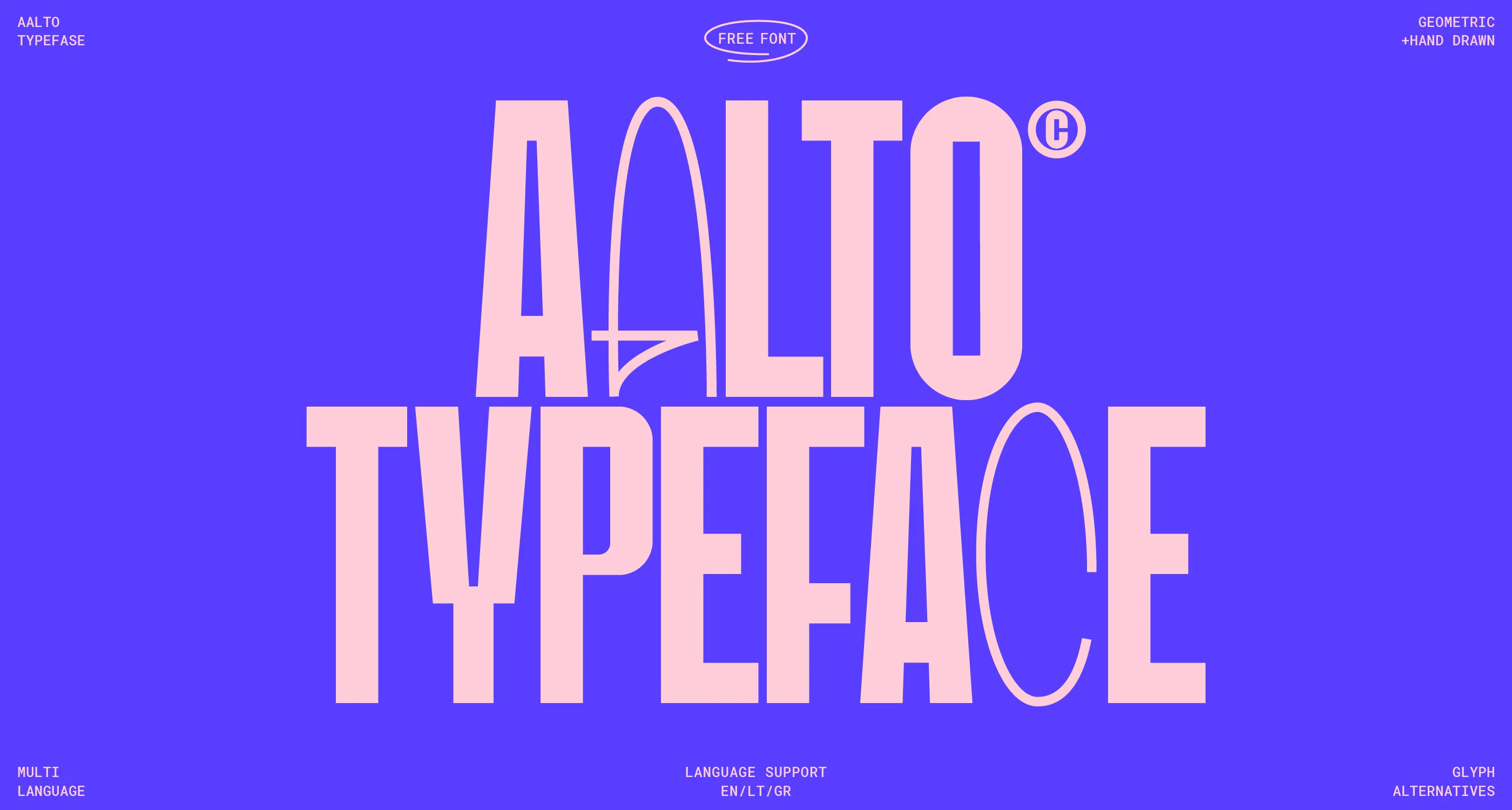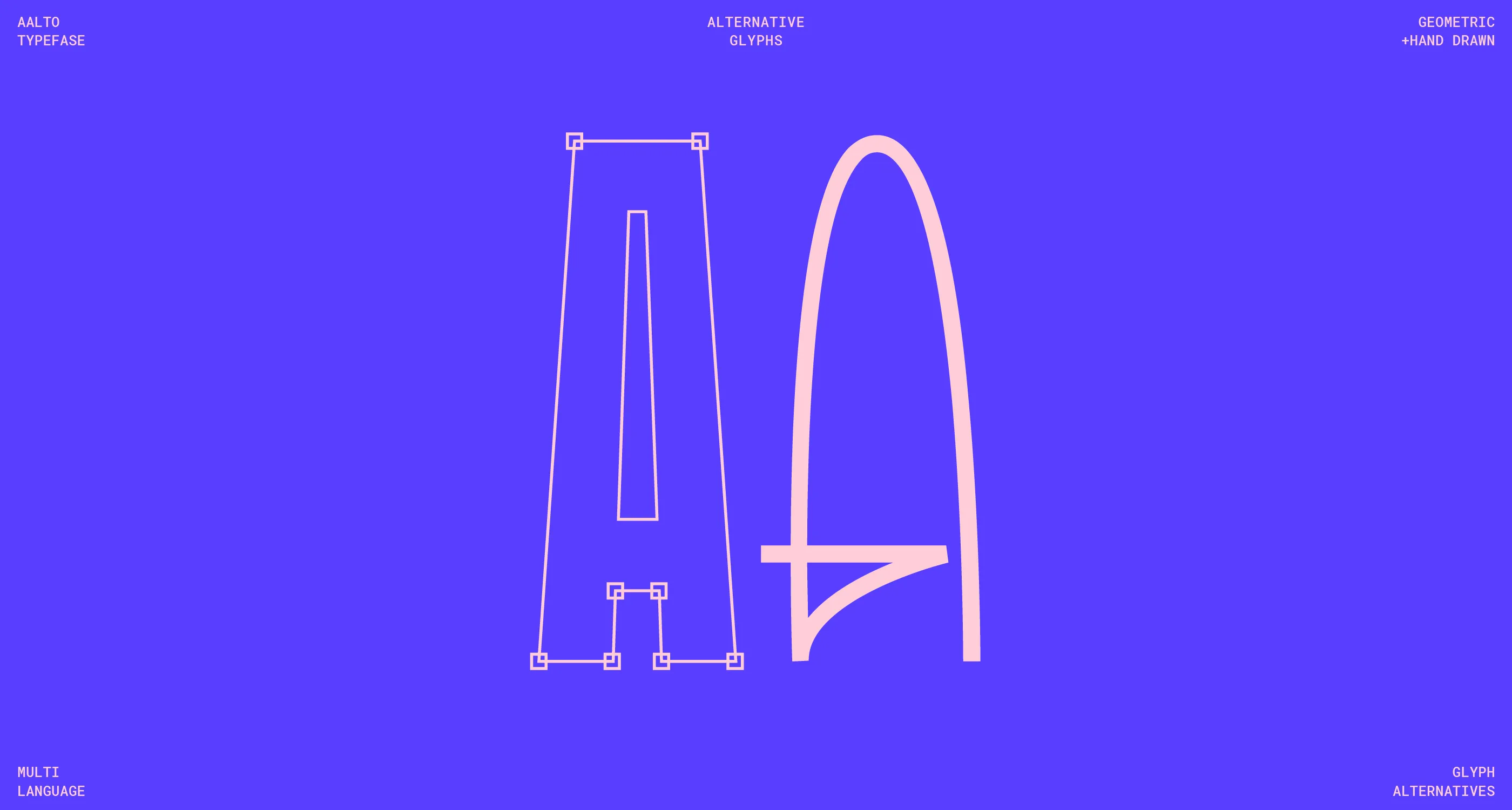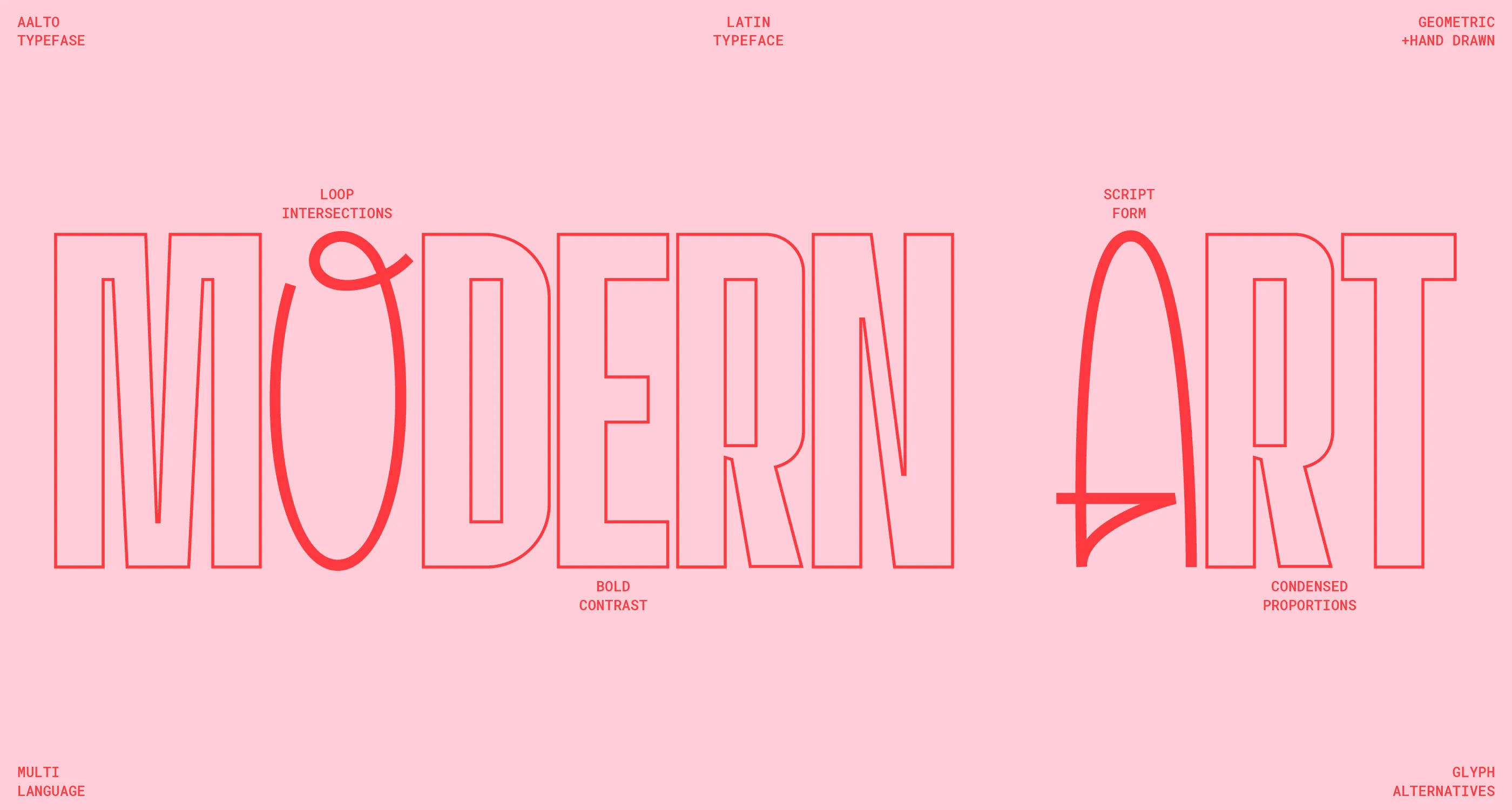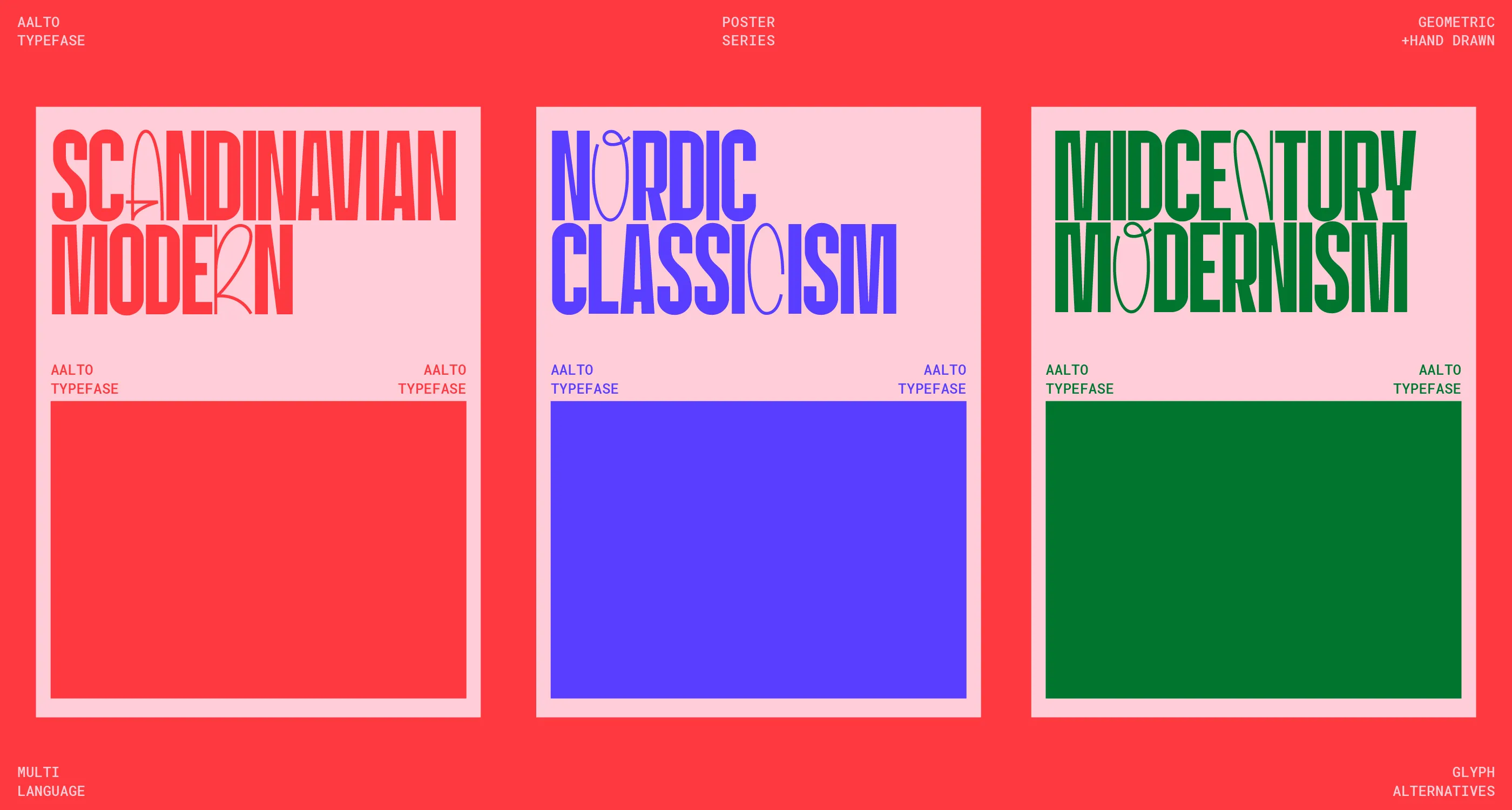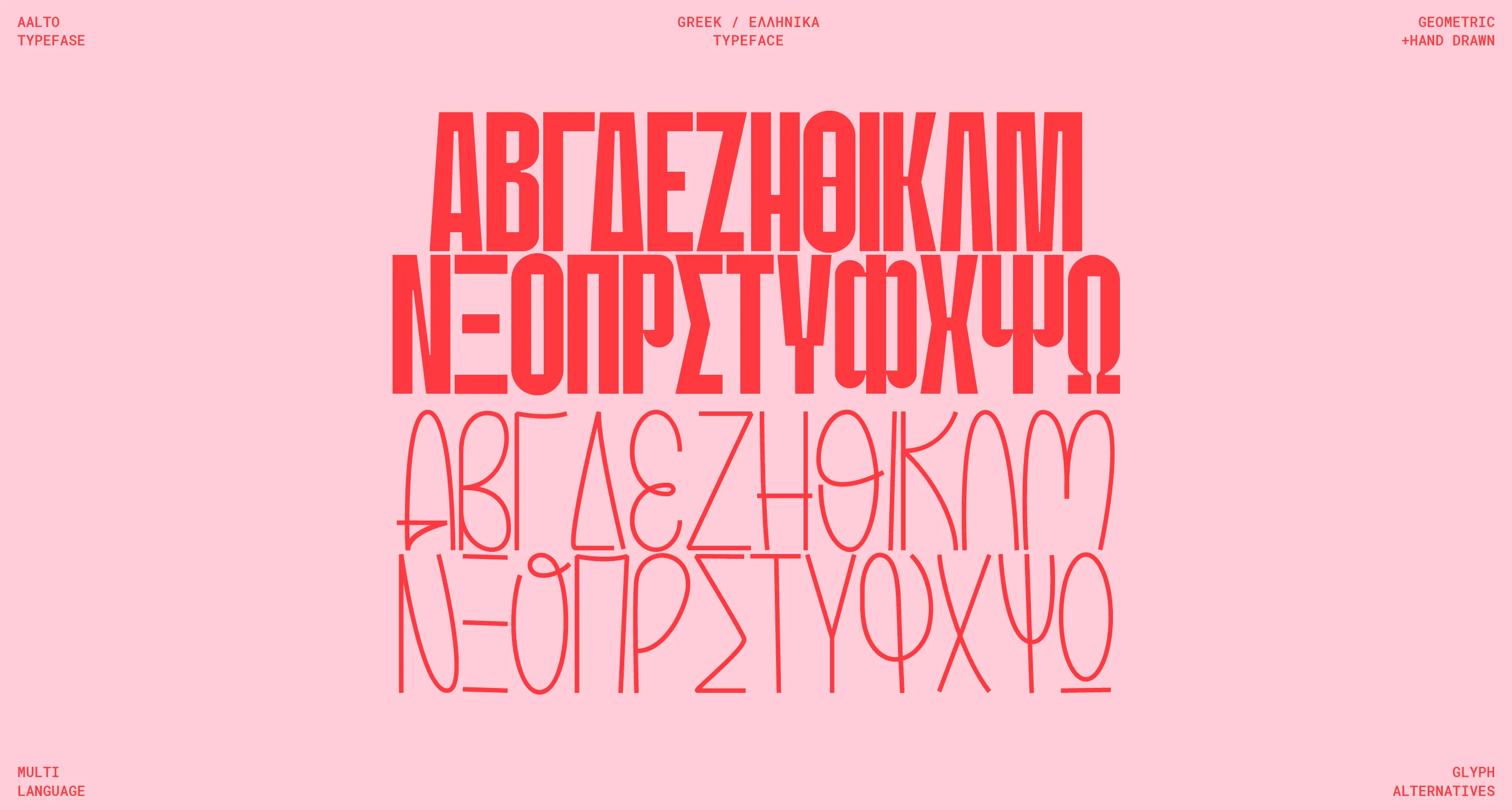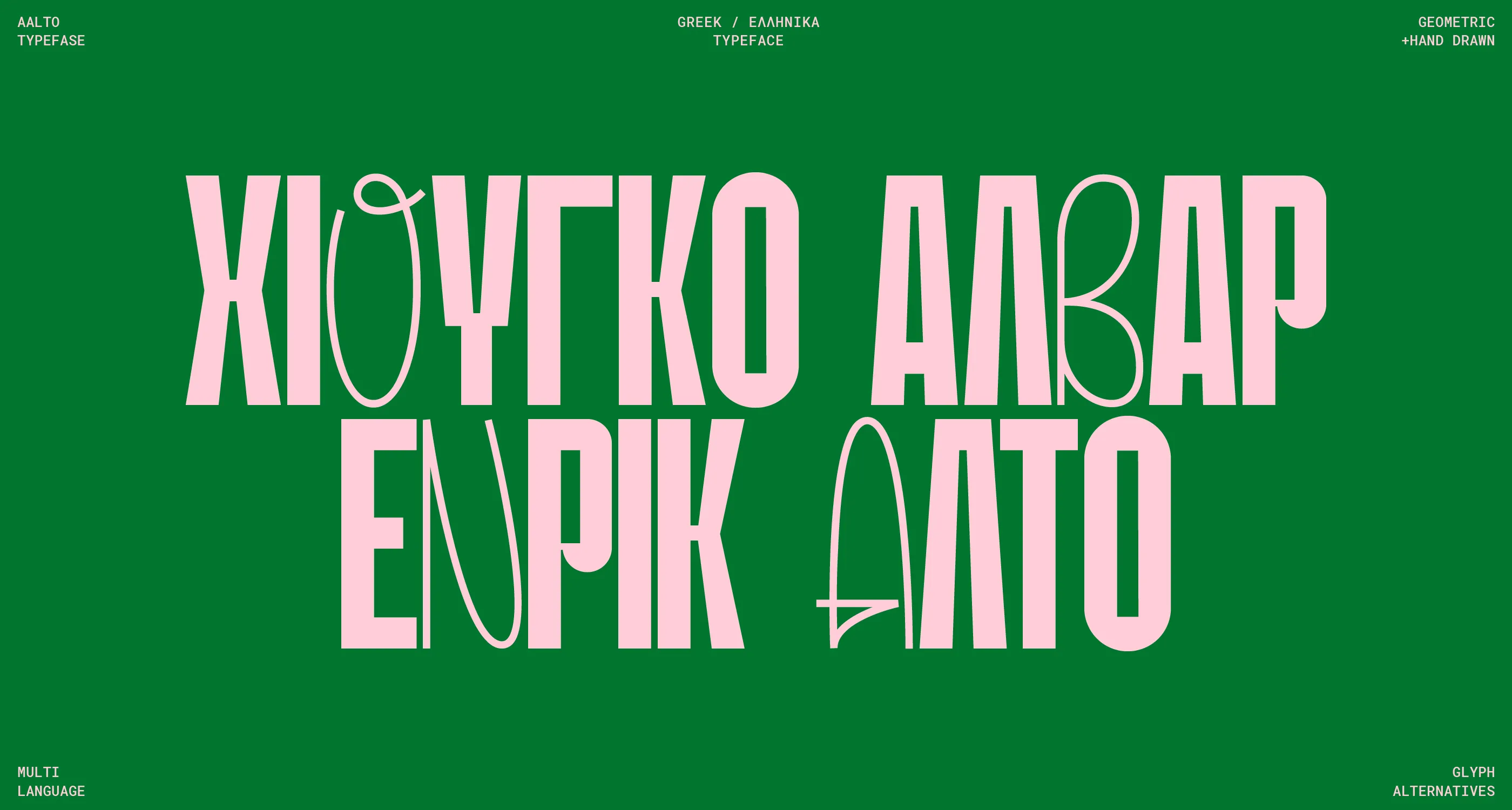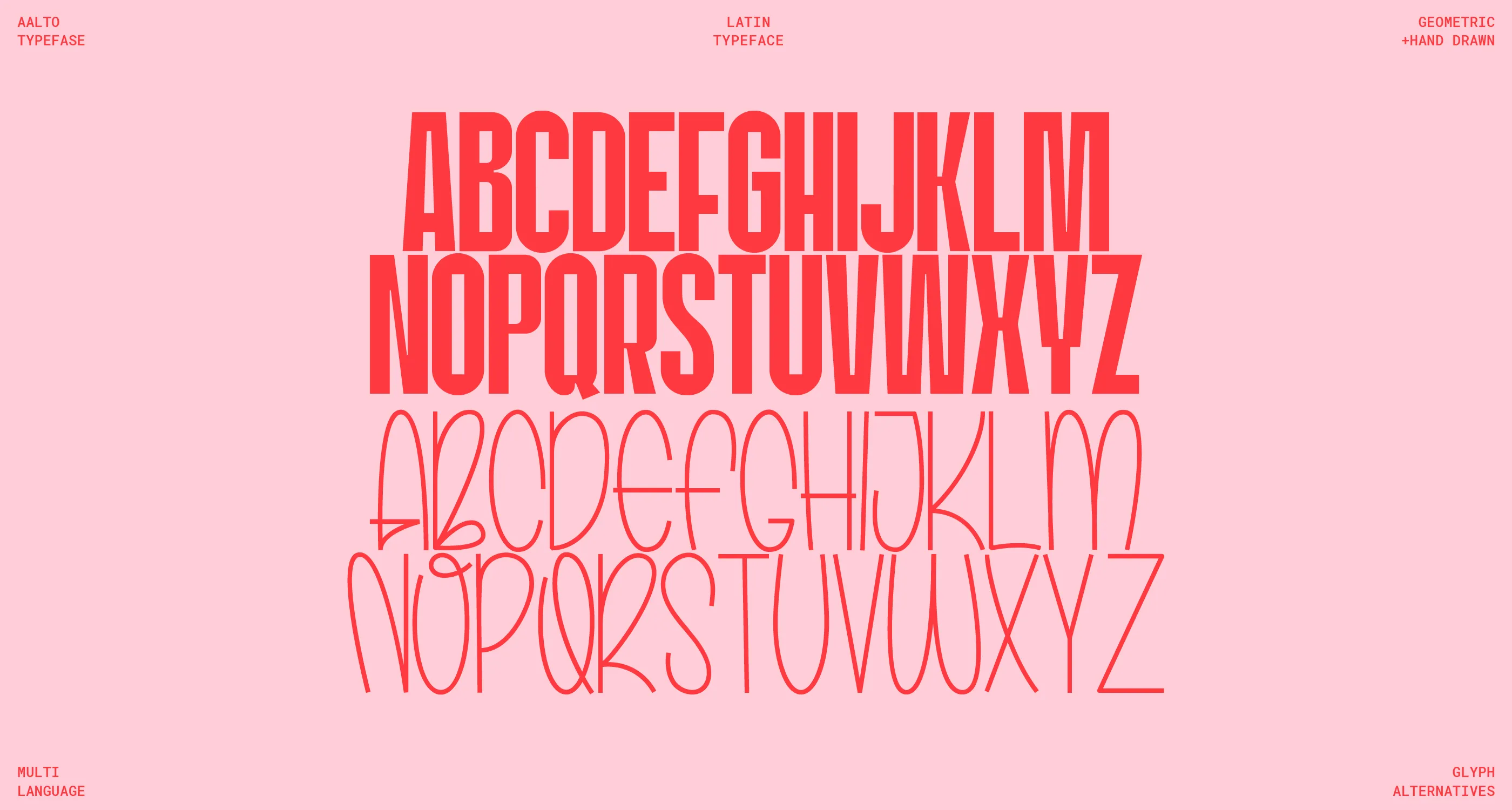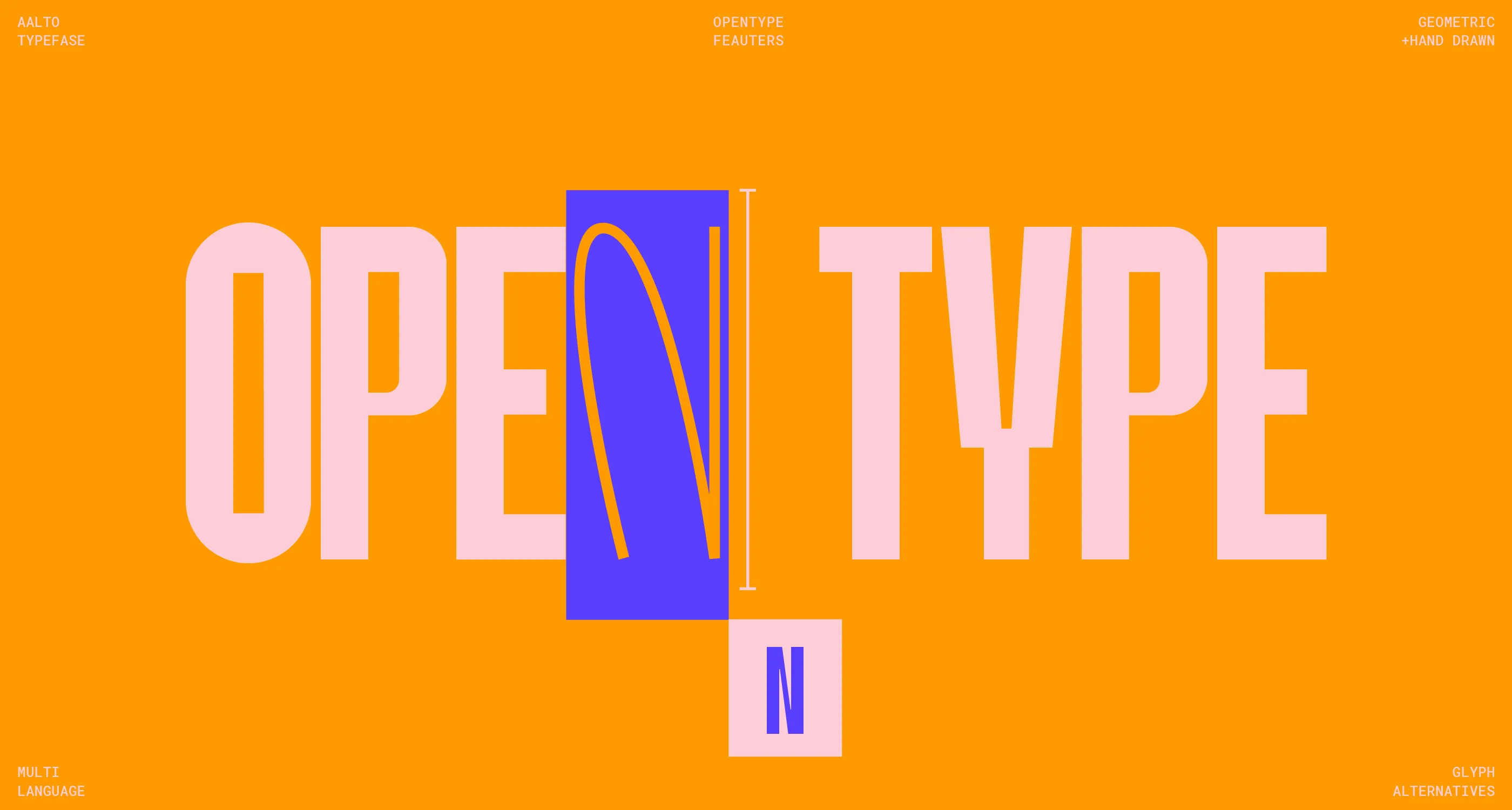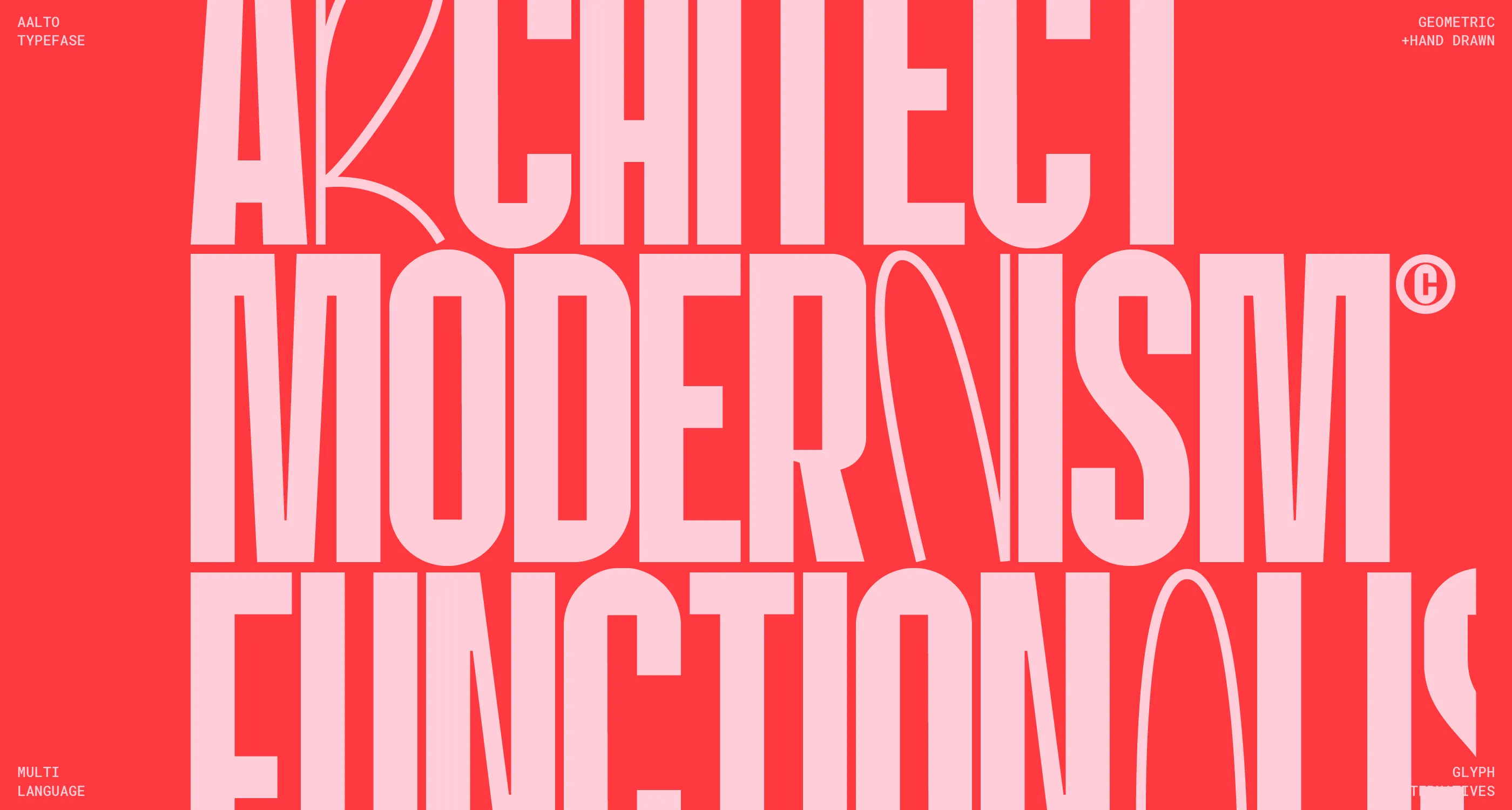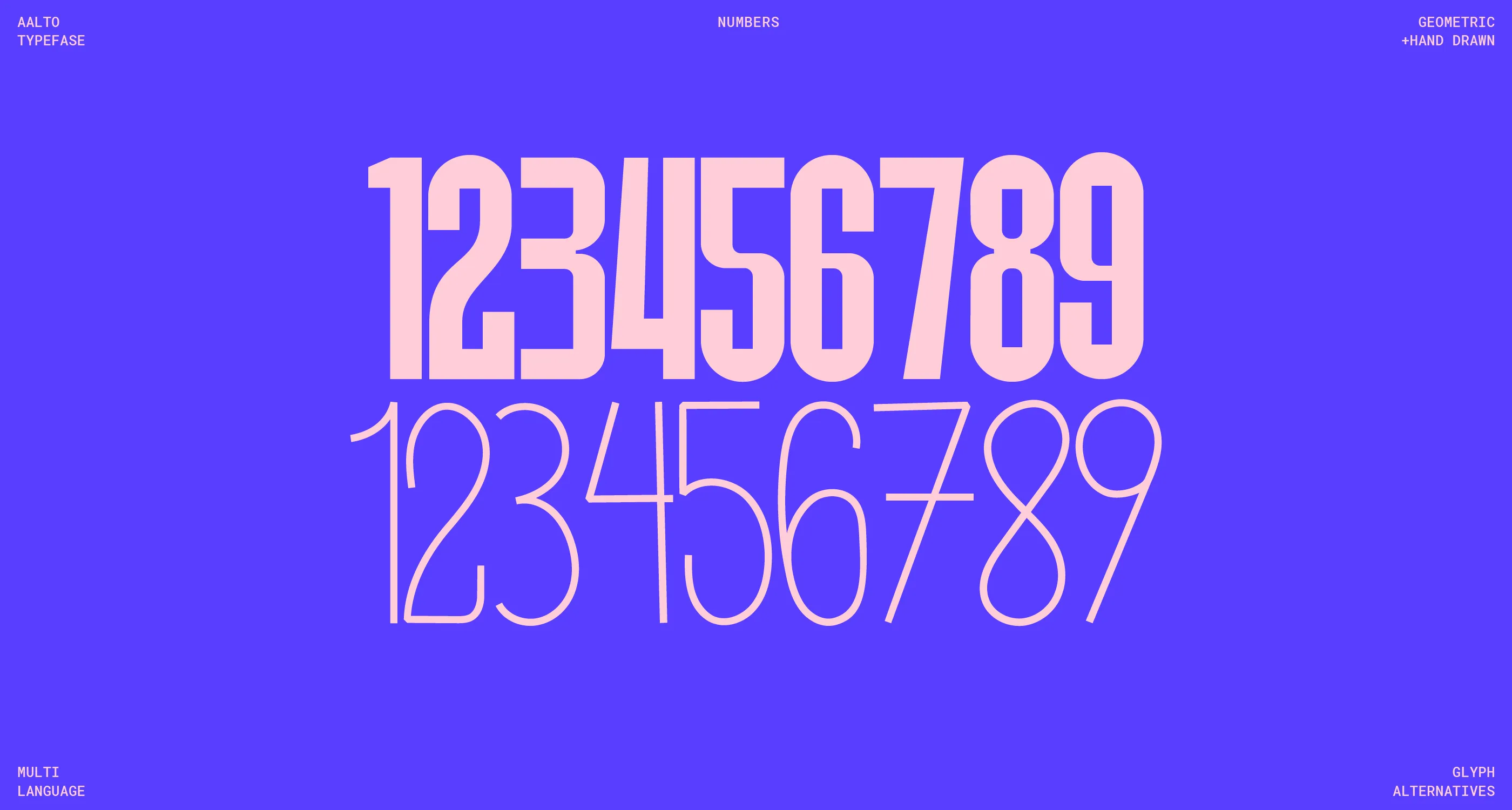
AALTO OPENTYPE FONT
Inspired by the legendary Finnish architect and designer Hugo Alvar Henrik Aalto, the Aalto OpenType font captures the essence of Aalto’s timeless aesthetic and innovative spirit.
• Elegant Design: Reflects the sophistication and simplicity of Aalto’s architectural masterpieces.
• Versatile Use: Ideal for editorial design, branding, web design, and more.
• Complete Character Set: Includes a comprehensive range of characters and symbols for diverse typography needs.
• OpenType Features: Offers advanced typographic capabilities like ligatures, alternate characters, and stylistic sets.
• Opentype Features
• 1 weight
• Upper case, numbers, punctuation
• Supported Languages: Latin & Greek